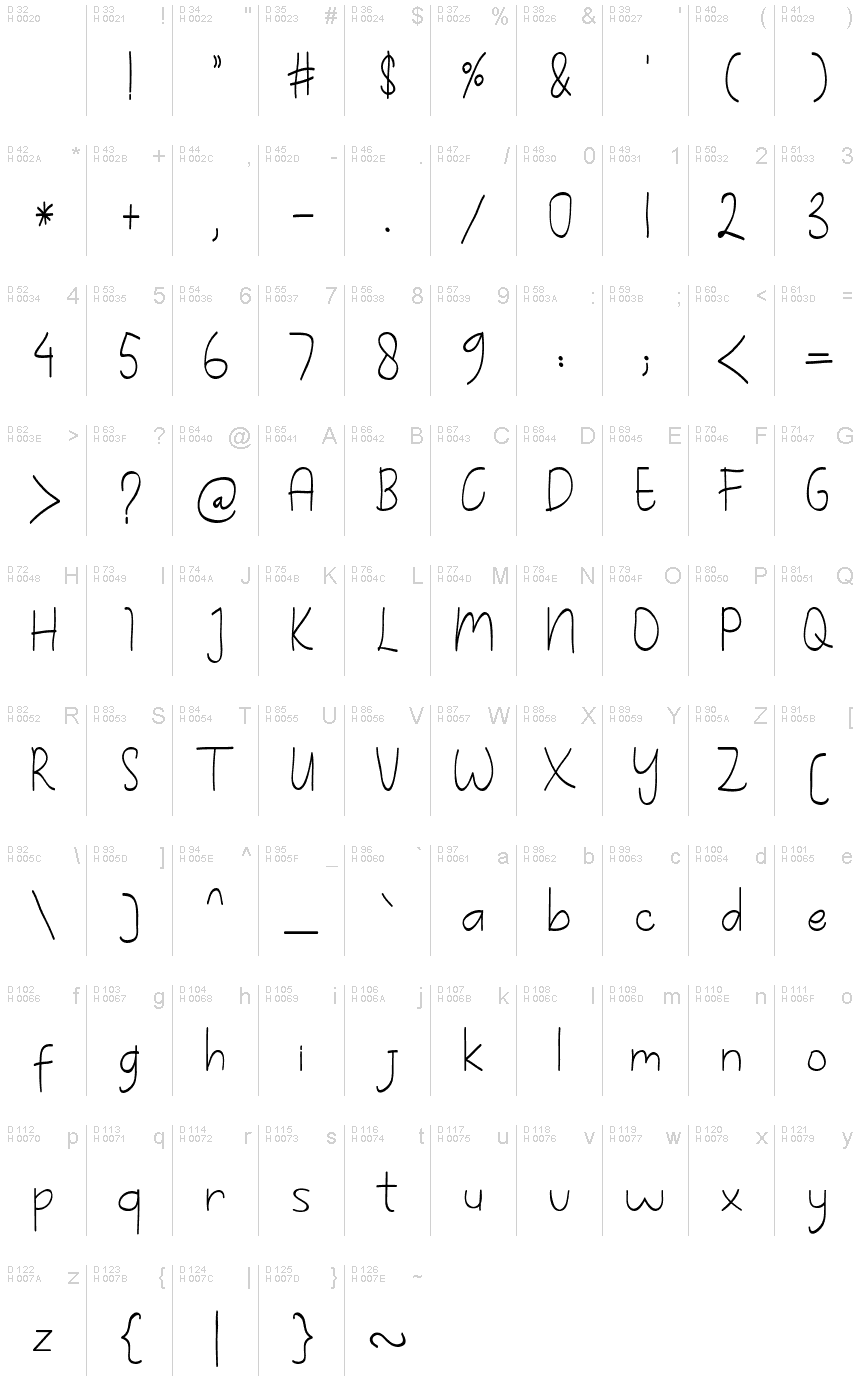
hello fortune
Hello Fortune is a charming handwritten font designed by Stellaris Studio. Its semi-light weight adds elegance to any project, making it perfect for greeting cards, wedding invitations, and other personalized designs. This font's whimsical style also makes it suitable for children's book covers or branding aimed at a youthful audience. Its playful nature can also bring a touch of informality to restaurant menus or social media graphics. Hello Fortune is versatile and can be used in both print and digital designs, adding a warm personal touch to any project.